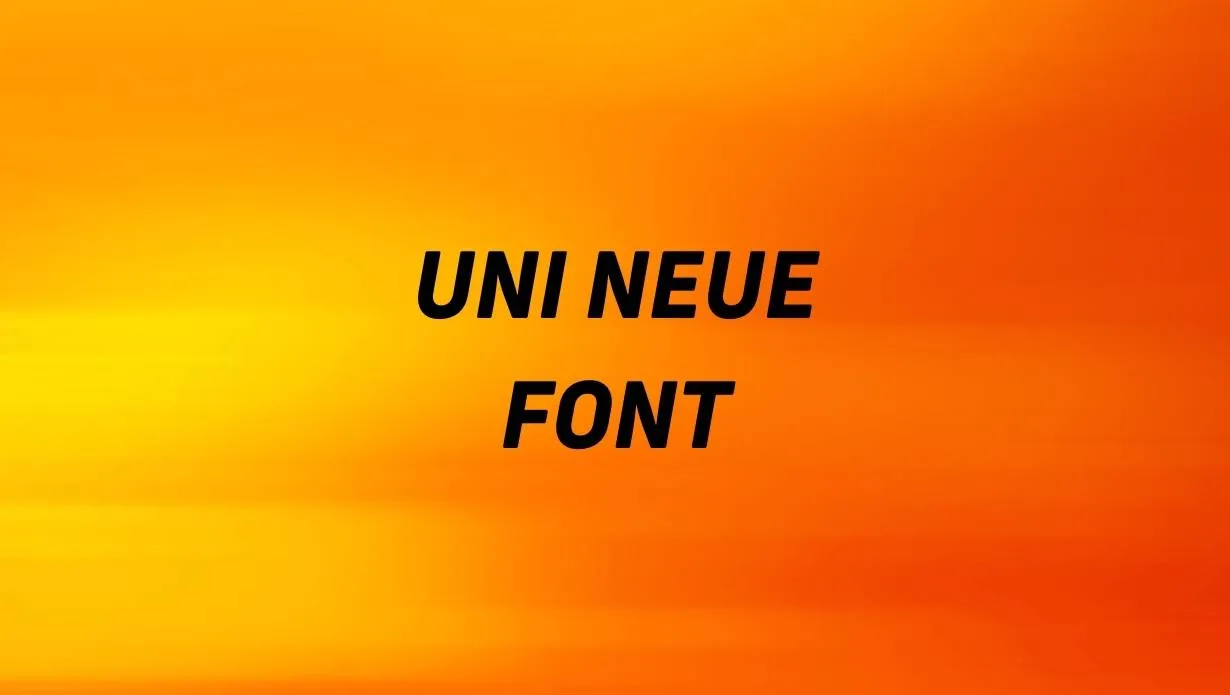
Uni Neue font is a redesigned version of the Uni sans font, one of the most famous font families of Fontfabric type foundry. The main changes like Widths, weights, proportions to the smaller details, which enable us to understand and feel the typeface on a completely new level. The primary designers of this font family are Svetoslav Simov and Plamen Motev and they designed this extraordinary font in the year 2017.
This is an advanced sans serif with geometric shapes and particular characters. The rounded corners of this typeface provide a friendly look, yet it keeps a professional quality for Branding projects. This typeface is perfect for editorial, TV, Screen, logo designs, advertising, branding projects, and product packaging, and so on due to its detailed letterforms and unique glyphs.
In addition. the font family has extensive language supports including Latin Extended, Cyrillic, French and Greek characters. It provides all case letters, basic numbers, punctuation marks, currency symbols, many stylistic alternates, updated icons, and many special characters. You can free download this typeface that is similar to Niki Just Do It font from our website for personal use only.
Usage of Uni Neue Font
Due to its clean, and modern geometric shapes and softly rounded characters, it is best for any texture content as well as provides a good feel to any big or small text. You can also use this typeface for headlines and titles and even good on documentation. This typeface is an official font of many corporations and is highly used for governmental documents.
There is a big list of designs where you can apply this font for example brands, product packaging, logo designs, posters, business cards, official websites, templates, editorial, Tv, Screens, posters,  app development, movie trailers, and much more. You can also utilize this typeface for your Powerpoint presentations, social media posts, and many related things where you need a phenomenal touch.
Uni Neue Font
What type of font is Uni Neue?
This is a redesigned version of the famous geometric sans serif named Uni Sans font. This font family comes in 7 weights from regular to heavy italic. It was designed and shared by Fontfabric foundry.
Who designed the Uni Neue font?
This modern sans serif typeface was designed by Svetoslav Simov and Plamen Motev and released in 2017 through Fontfabric type foundry.